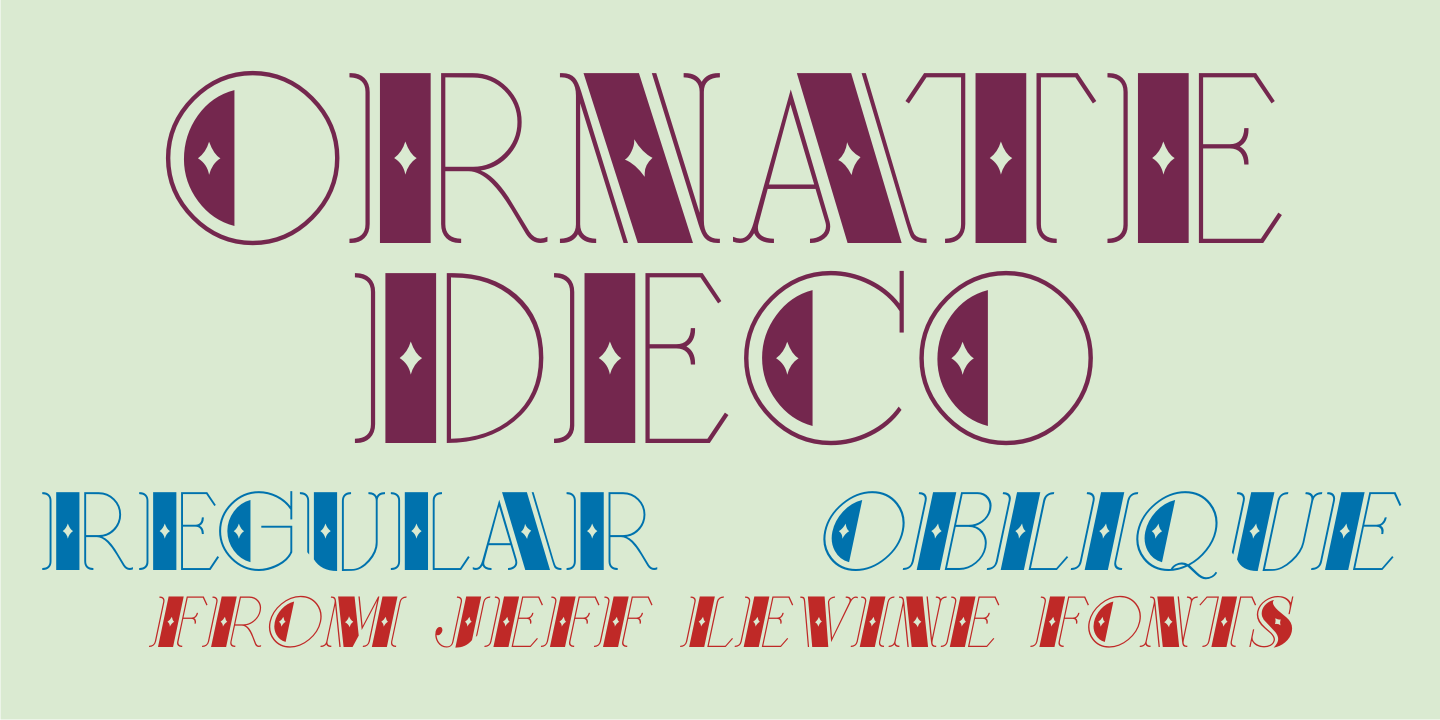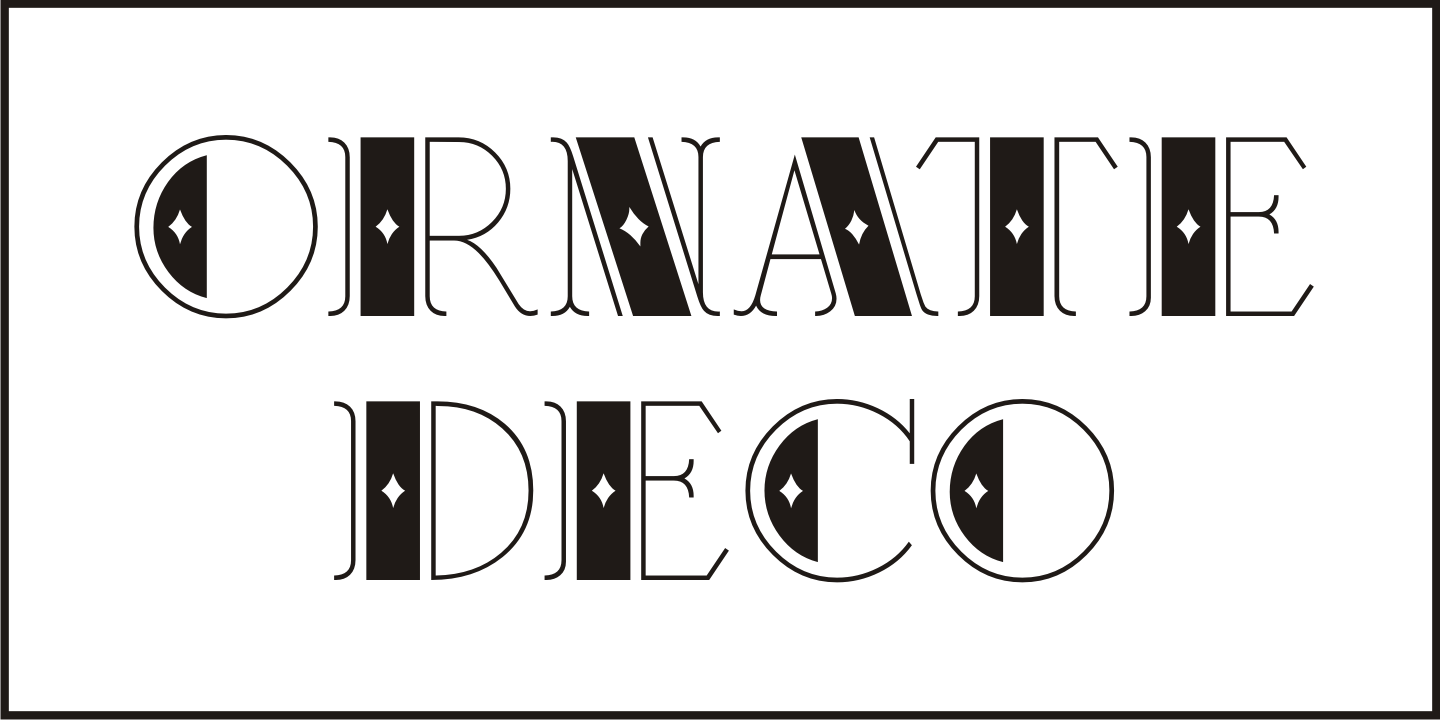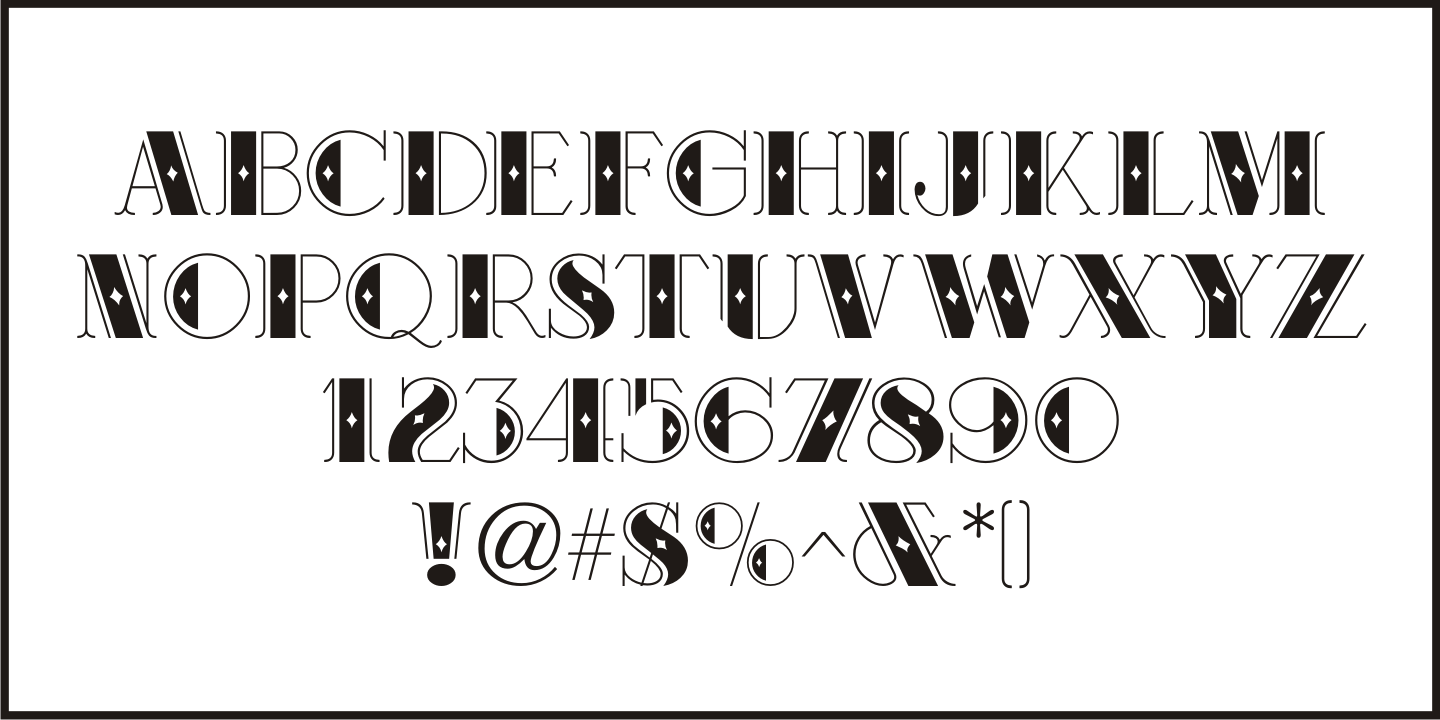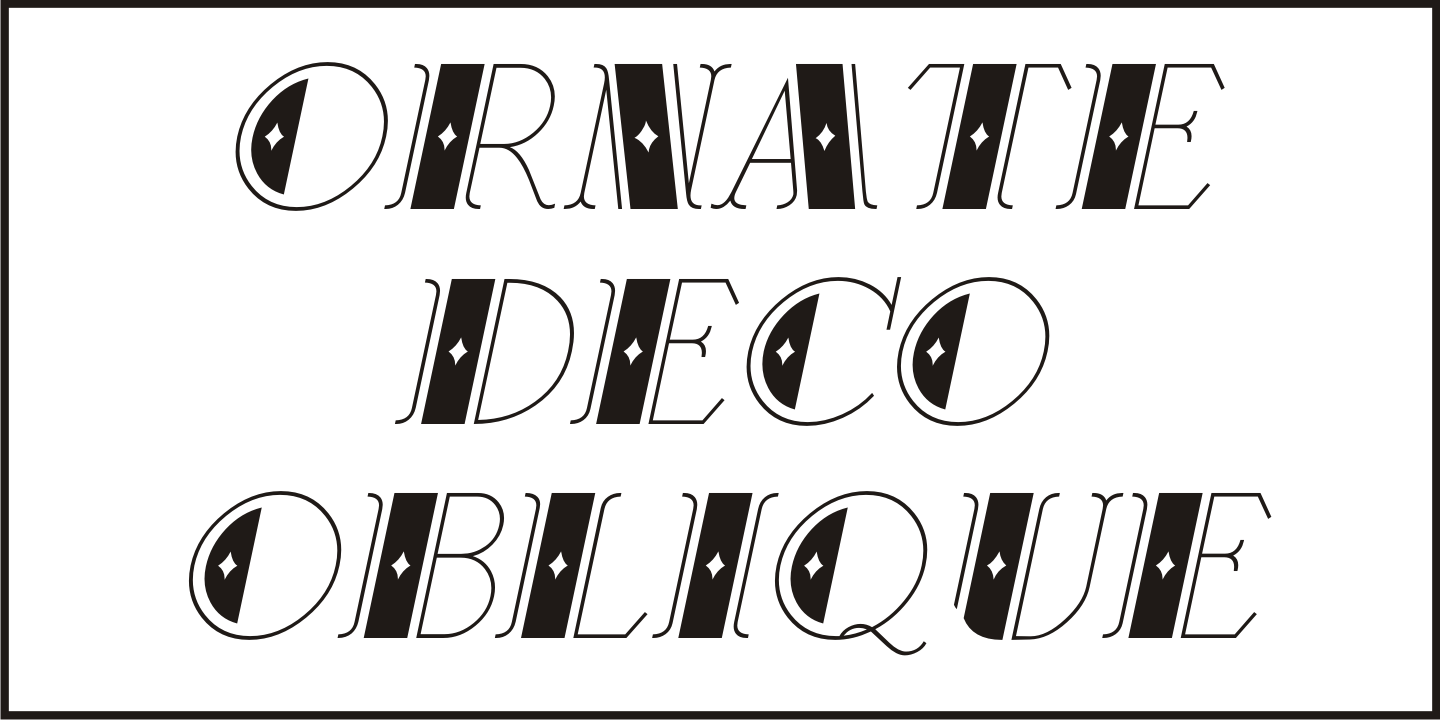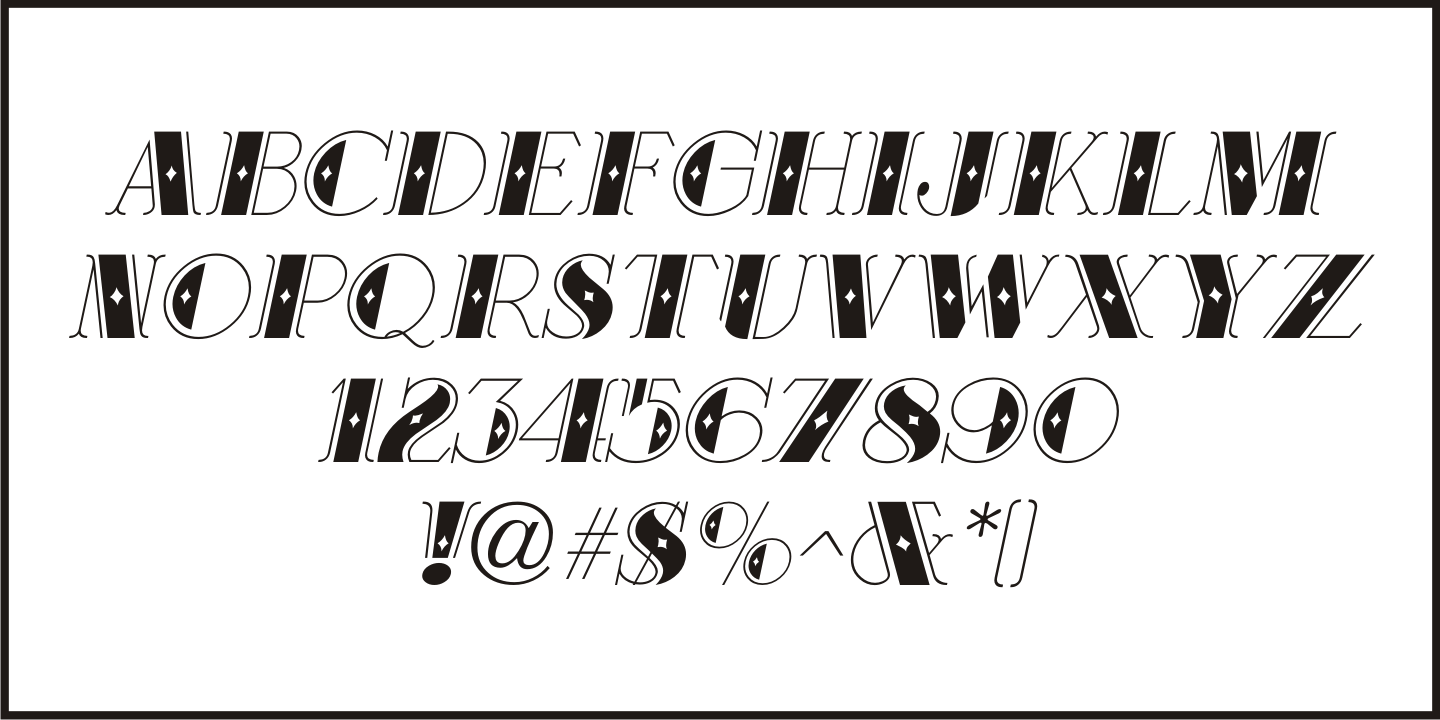
Ornate Deco
Ornate Deco JNL is a thick-and-thin Art Deco serif typeface with diamond shapes inside the thicker parts of the characters.
It is based on an alphabet example found in the 1949 French lettering book 'Album de Lettres Arti”, and is available in both regular and oblique versions.